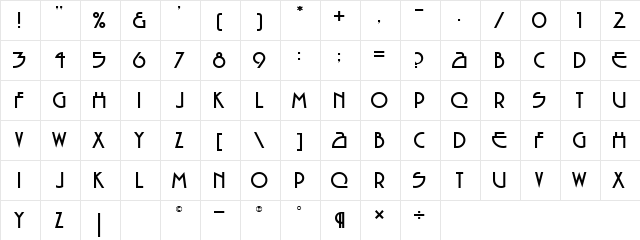
EncounterReg Regular
Design Context for EncounterReg Typeface
EncounterReg is a composed and adaptable typeface that performs quietly and consistently across a wide range of design contexts.